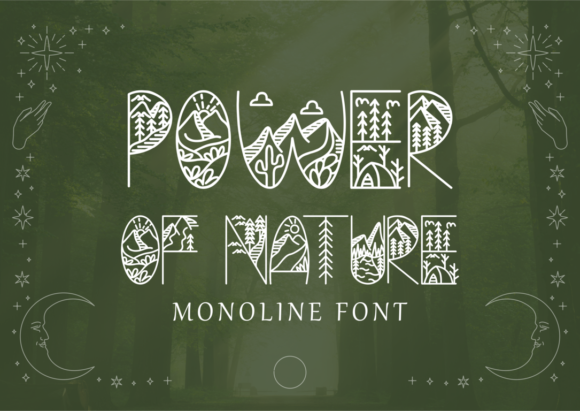
Immerse yourself in the captivating world of Power of Nature, a display font that embodies the untamed beauty and awe-inspiring grandeur of the natural world. Designed to be the perfect companion for retina displays, this font boasts impeccable clarity, sharpness, and elegance that will leave you breathless.
Crafted with meticulous attention to detail, Power of Nature is a visual masterpiece that exudes sophistication and allure. Its carefully drawn characters dance across the screen, creating a symphony of visual delight that will captivate your audience and leave a lasting impression.
Unleash the boundless possibilities of Power of Nature and watch as your creative visions come to life. Whether you're crafting logos, headlines, posters, or social media graphics, this font will effortlessly elevate your designs and make them shine brighter than the stars.
With its versatility and boundless charm, Power of Nature effortlessly adapts to a myriad of styles and themes. From bold and adventurous to serene and tranquil, this font seamlessly harmonizes with your creative vision, allowing you to express yourself fully and authentically.
Experience the transformative power of Power of Nature today and embark on a creative journey unlike any other. Let your imagination soar as you witness your designs flourish and take on a life of their own. Seize the opportunity to make a lasting impact and leave an indelible mark on the world.
Power of Nature - The Font That Ignites Your Creativity and Sets Your Designs Ablaze.